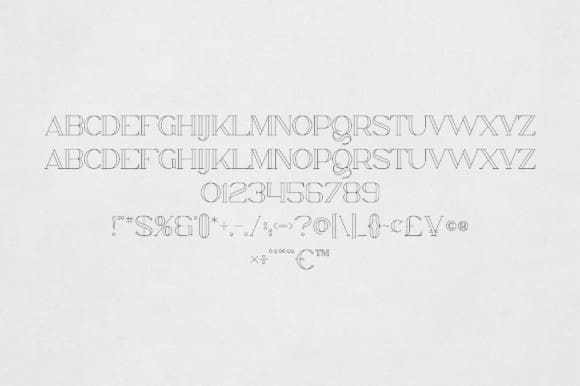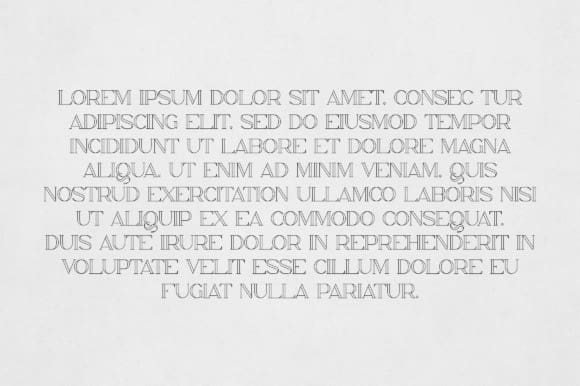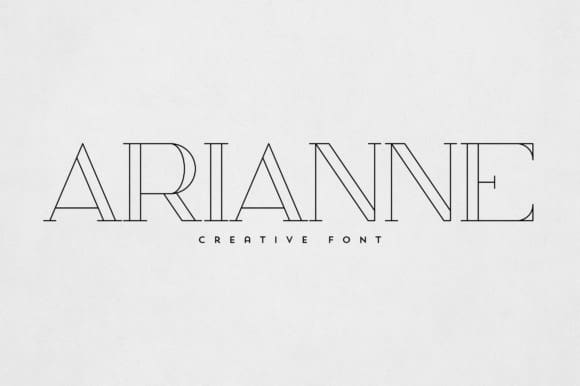
Arianne Font
Arianne Font is an elegant and versatile font that will make your typography truly unique! It will enchant every logo, branding, headline, or plain text!